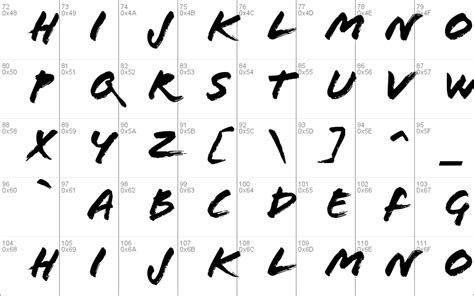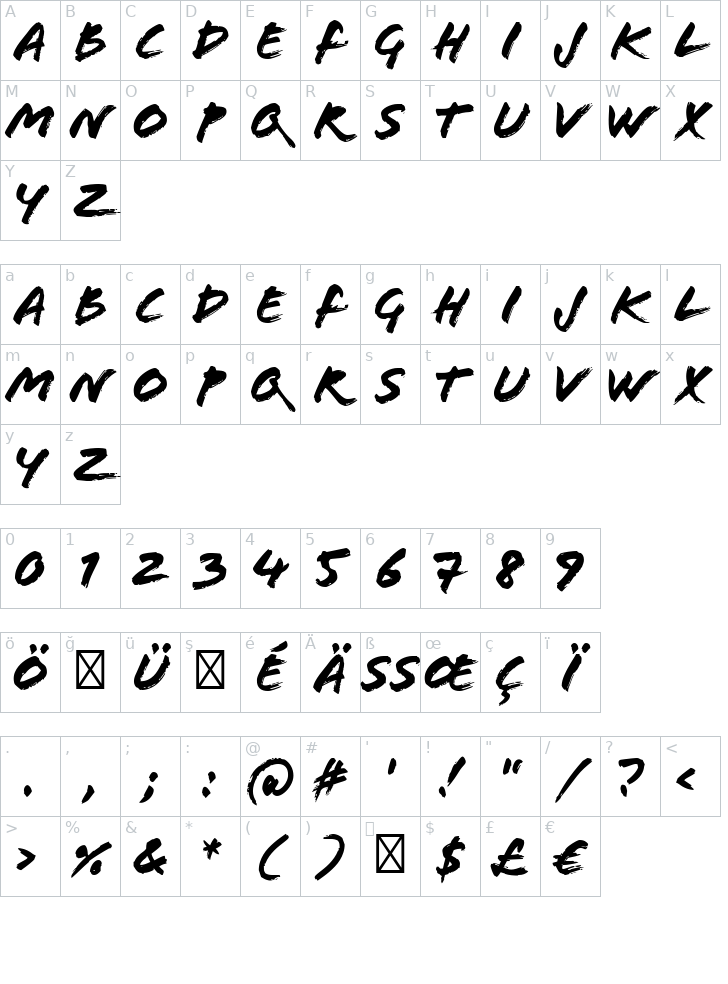
The flood std font was designed by joachim m ller lanc. Web download flood std regularopentype font. A handmade typeface with 1 style, available from adobe fonts for. The flood std font was designed by joachim m ller lanc.